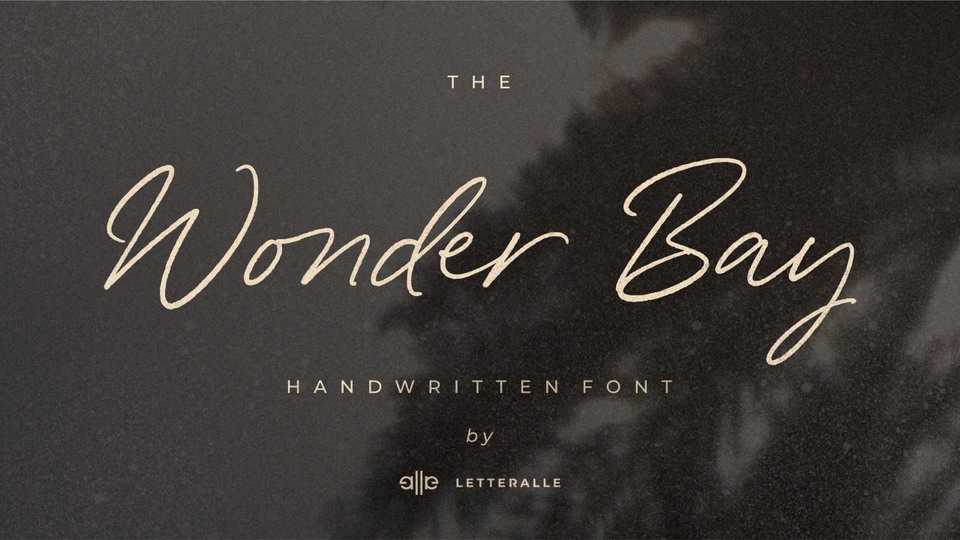
Download Wonder Bay font, a relaxed and warm handwritten script. Wonder Bay font is perfect for branding projects, clothing design, homeware designs, product packaging, etc.
Designer: Letteralle Studio